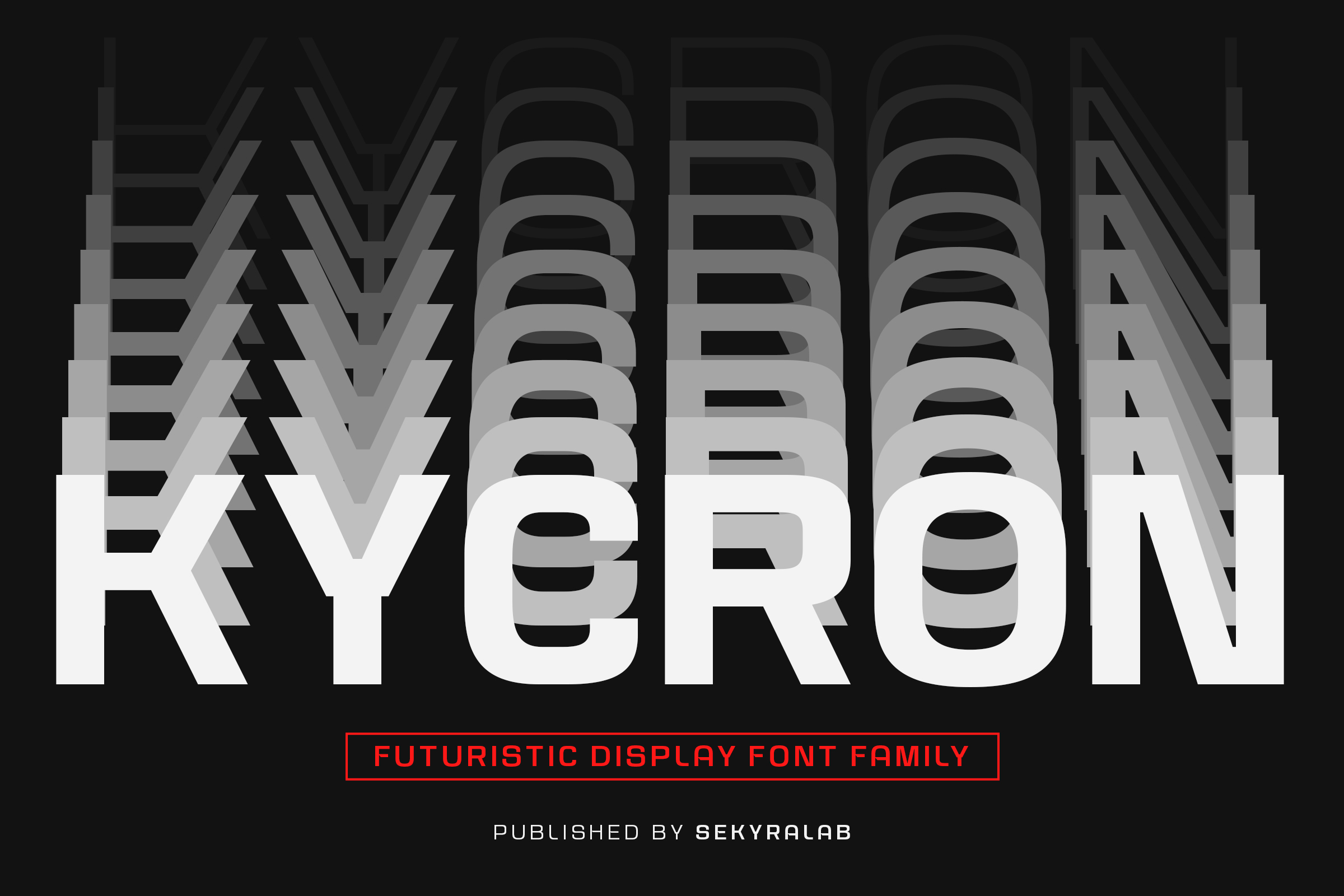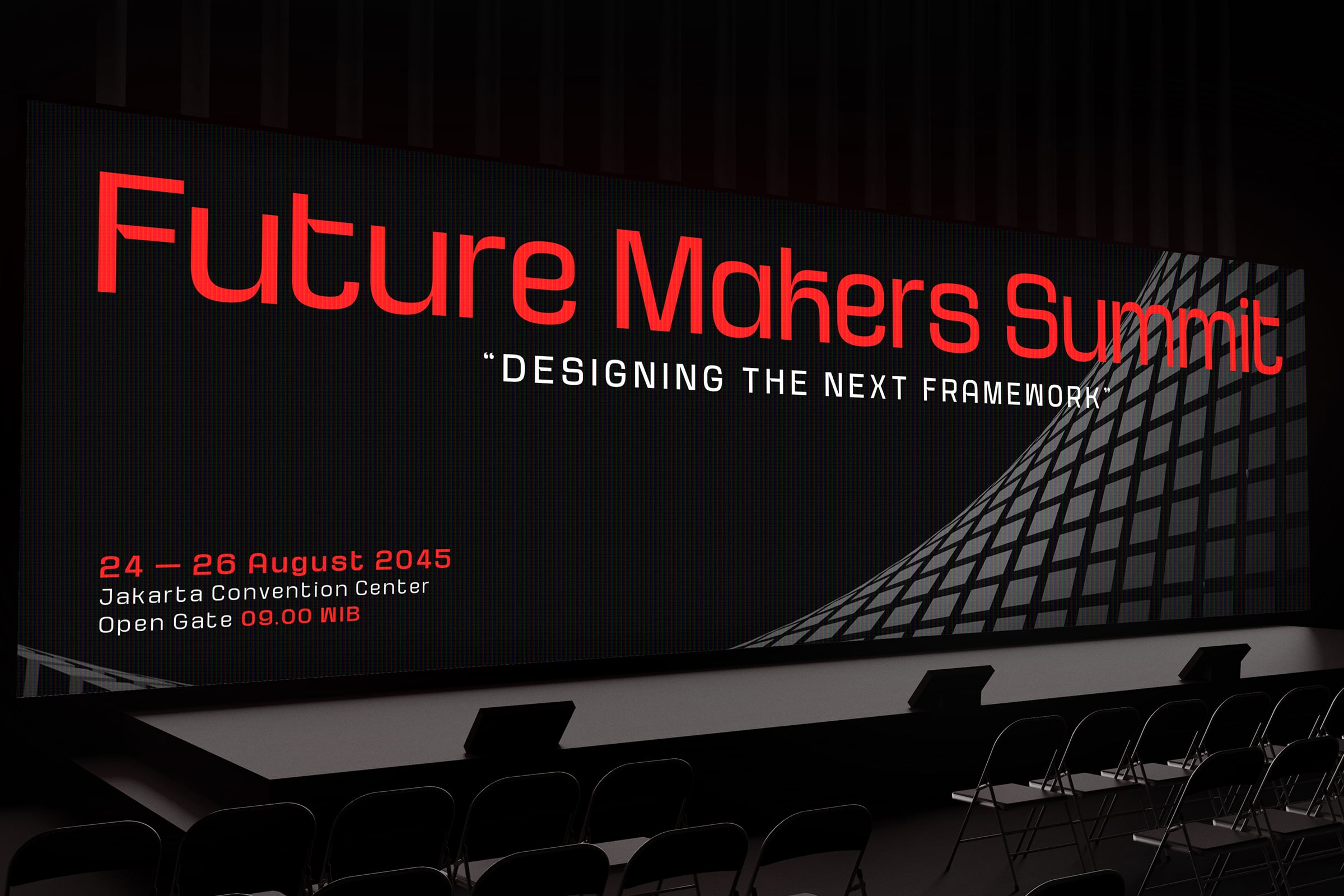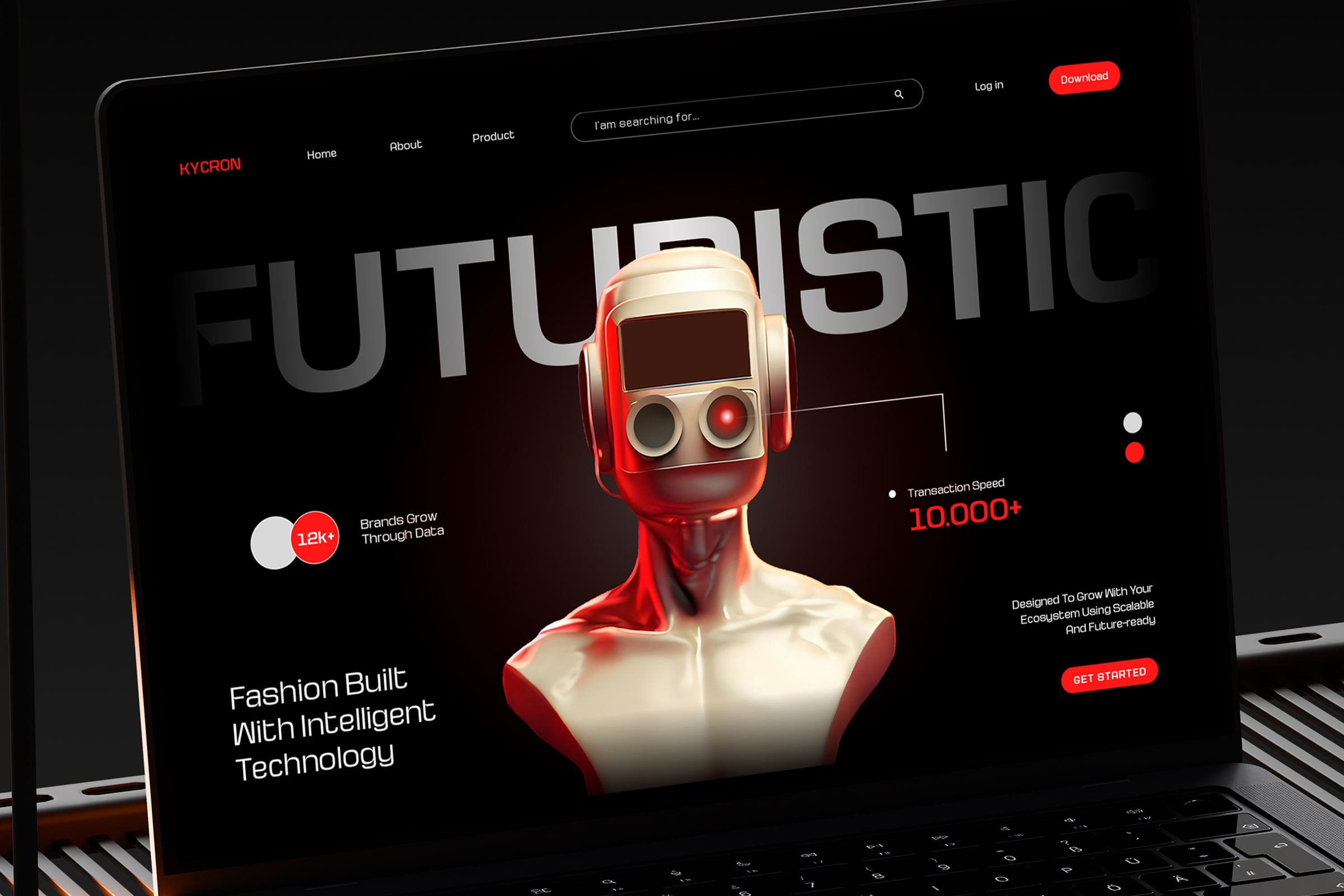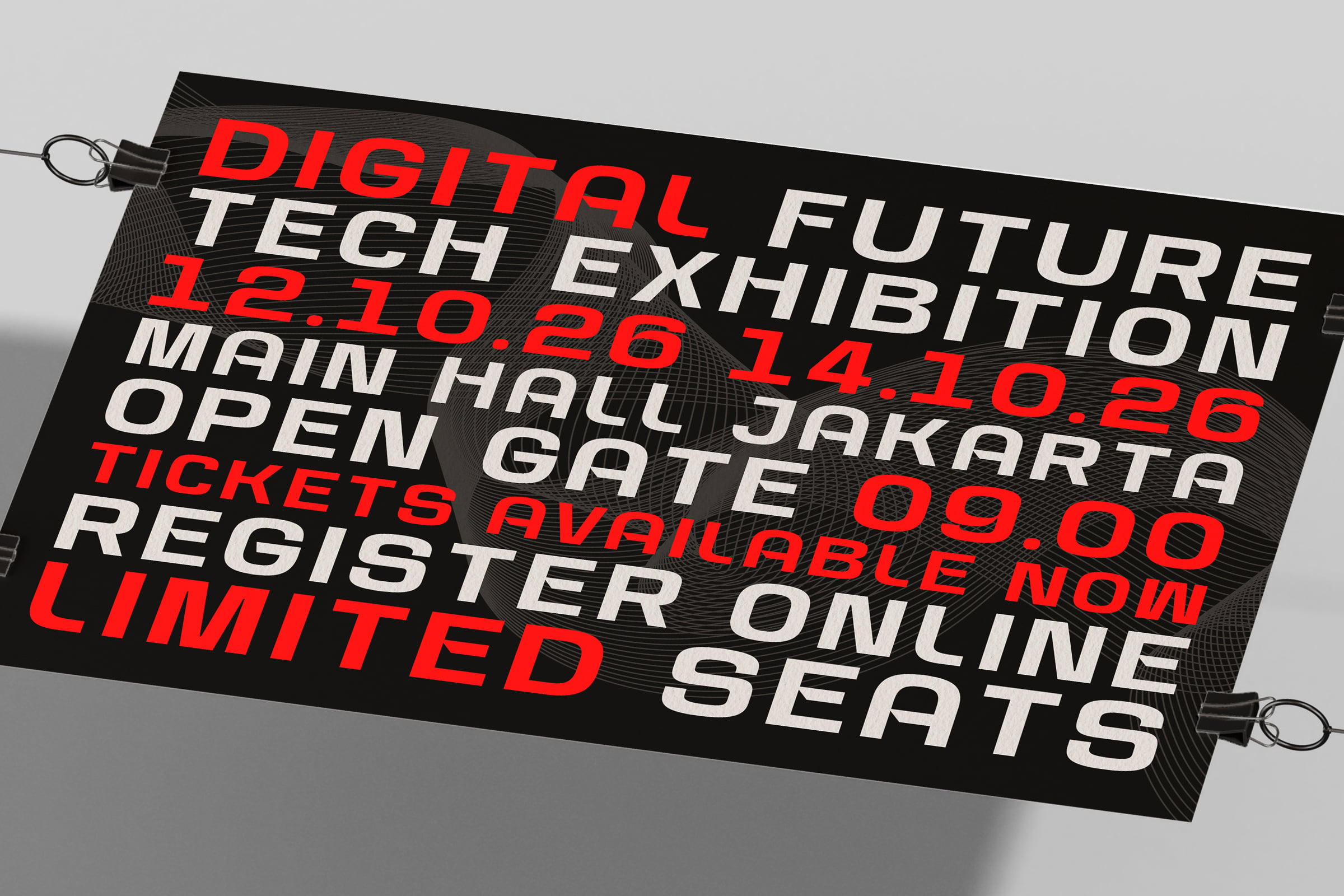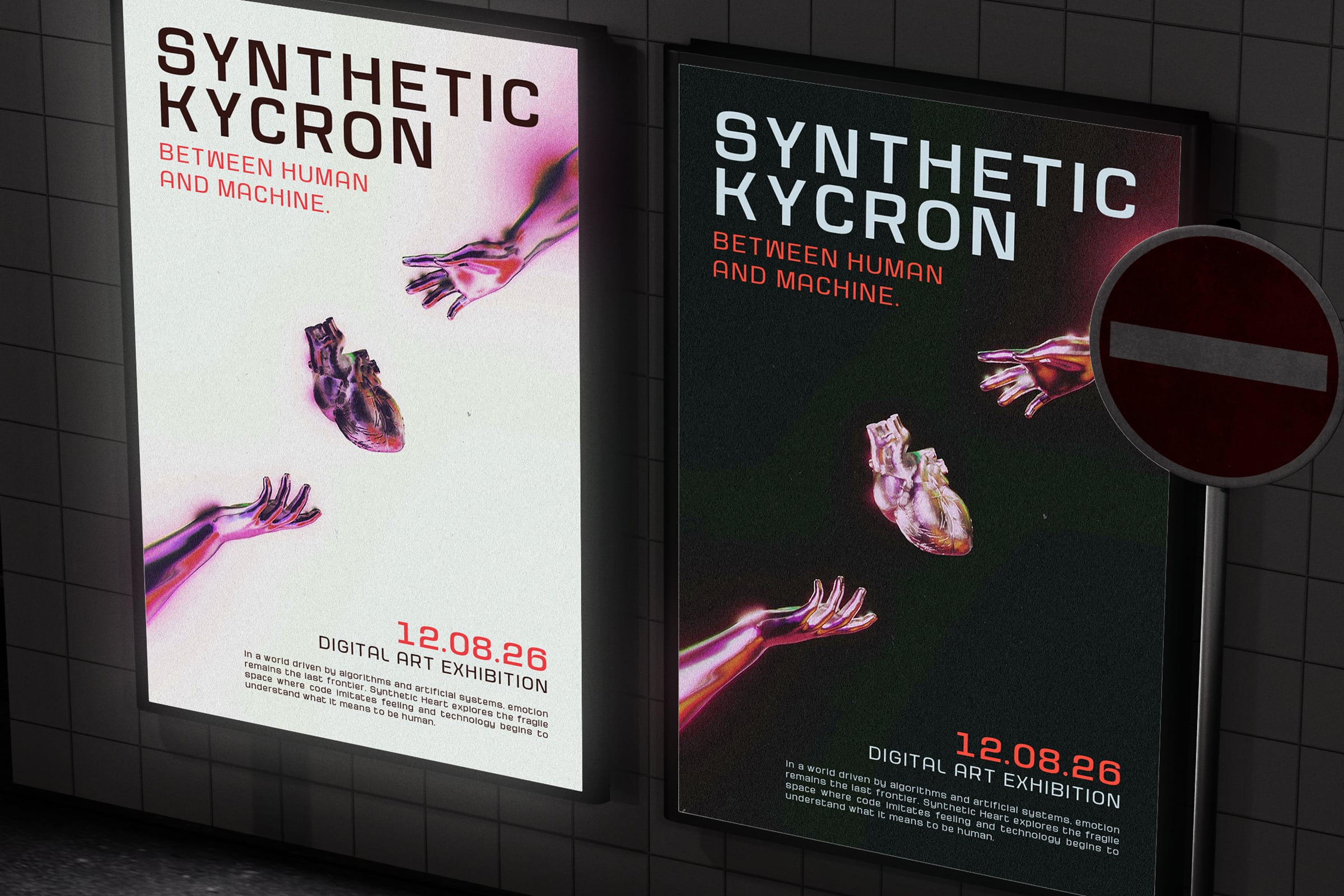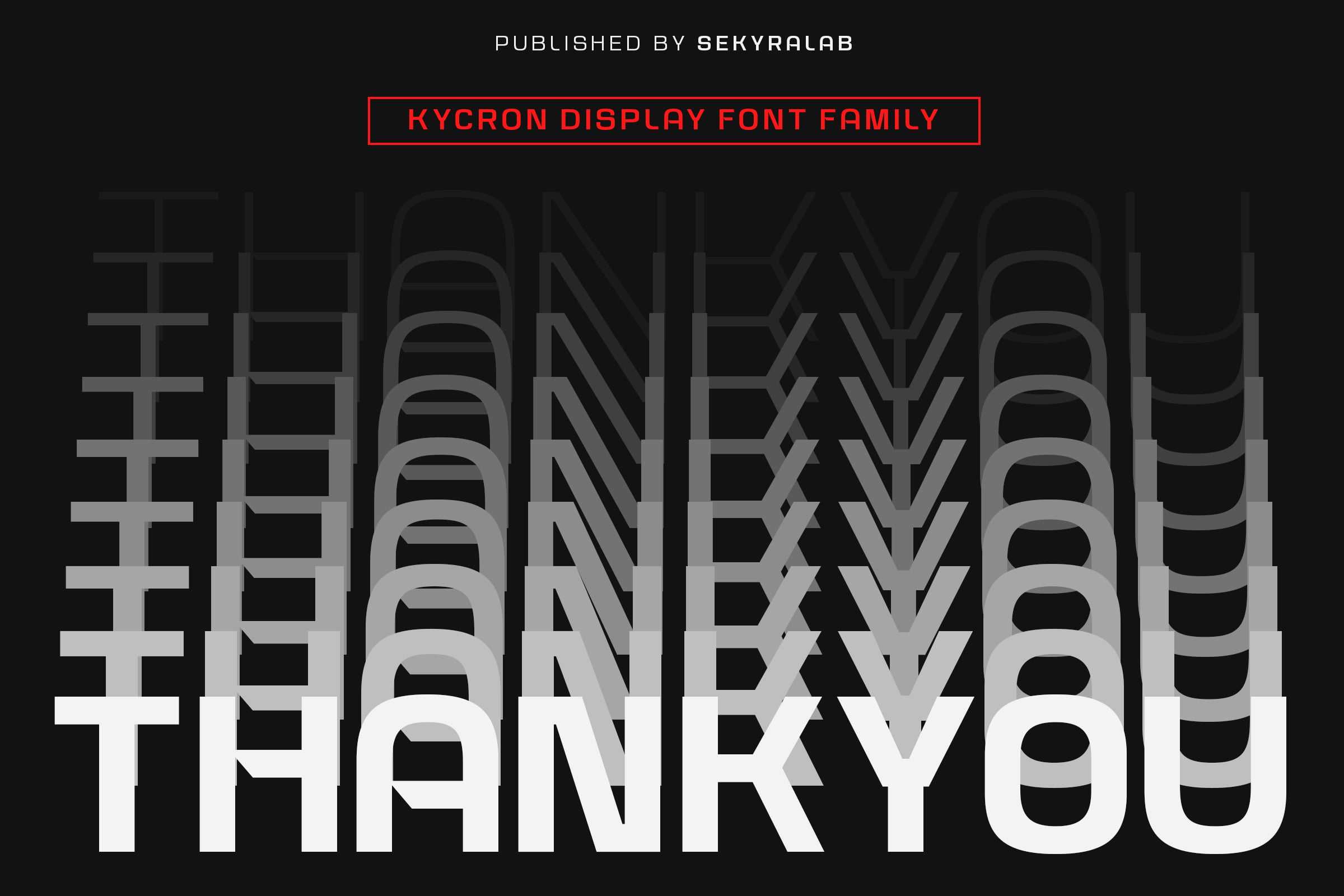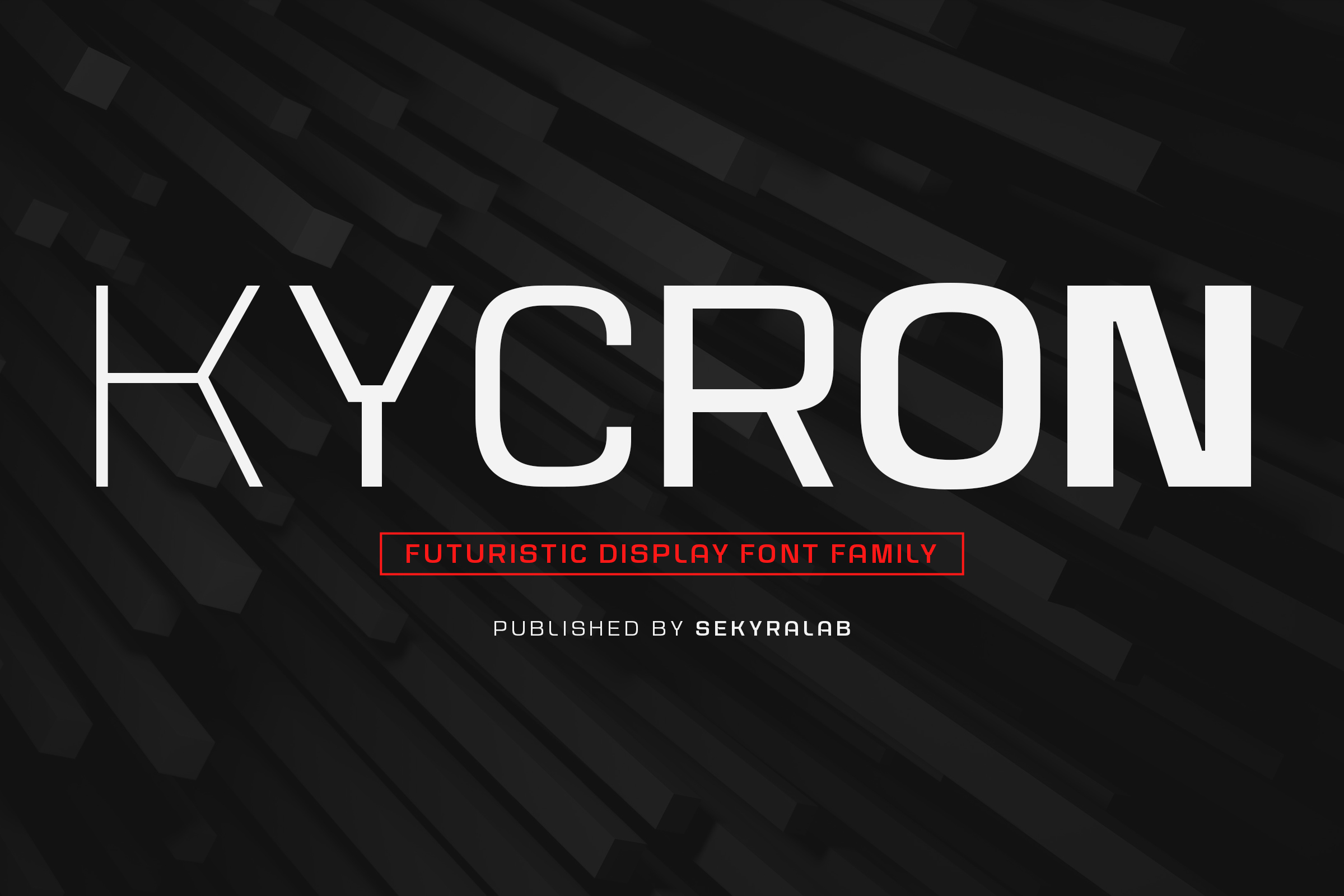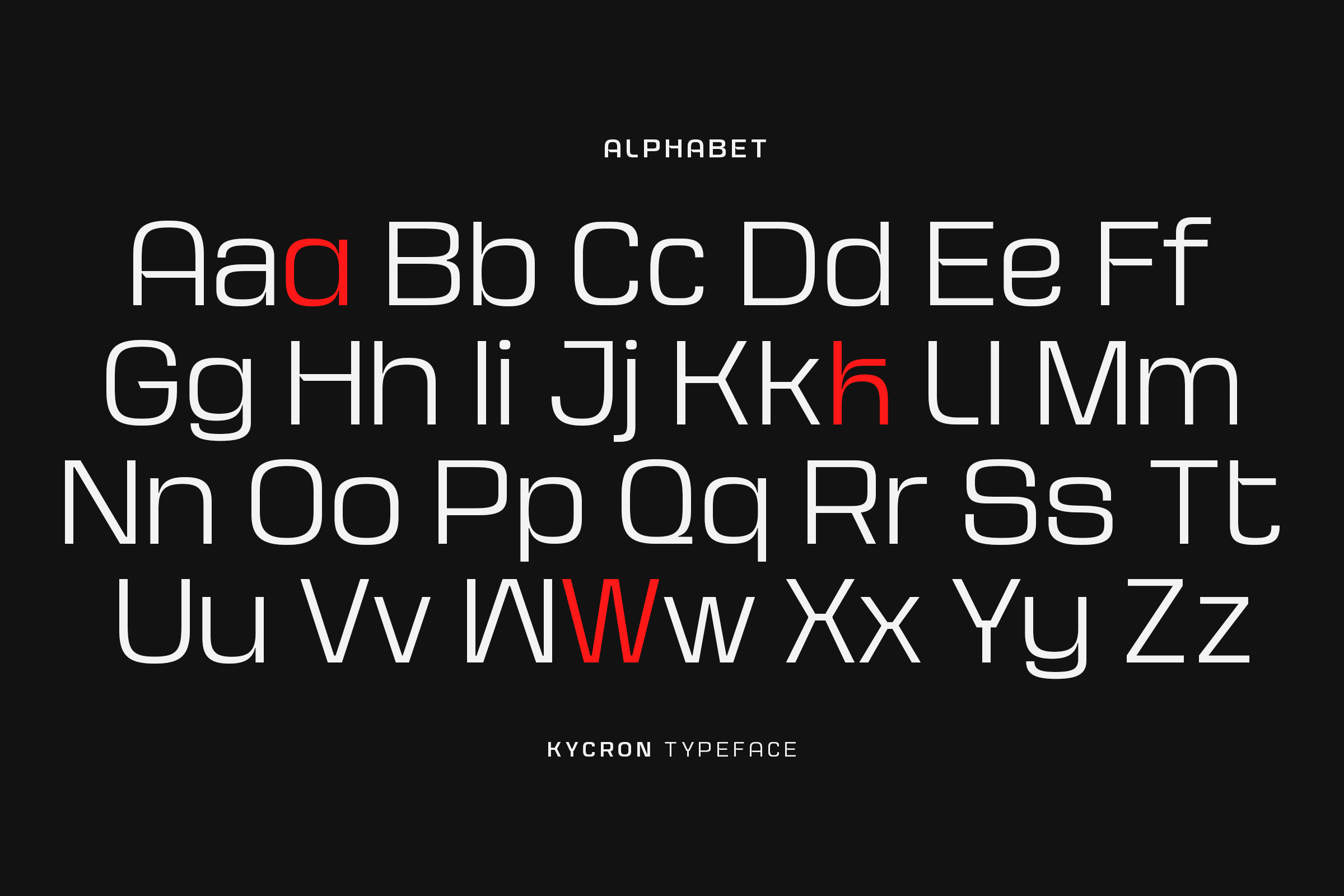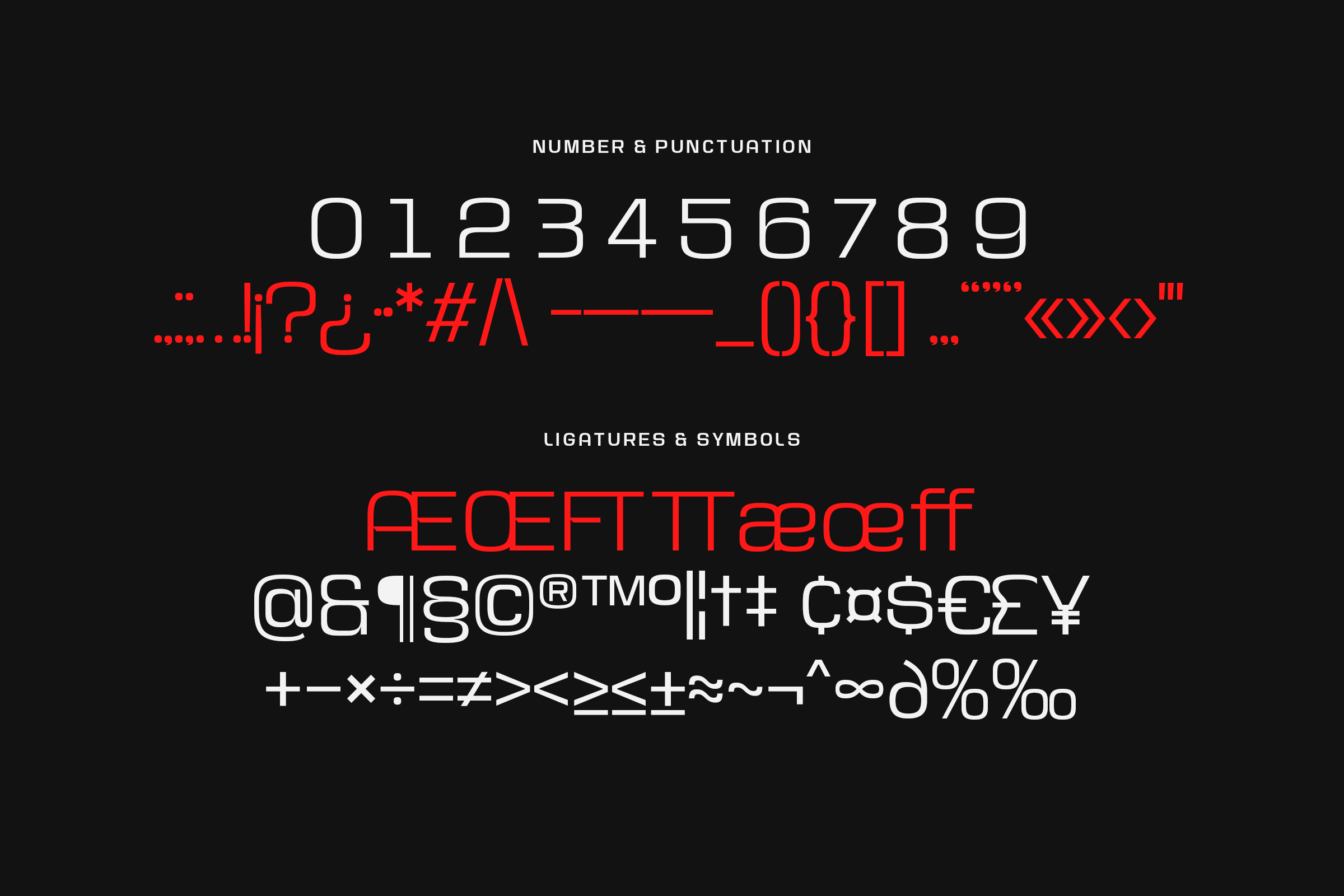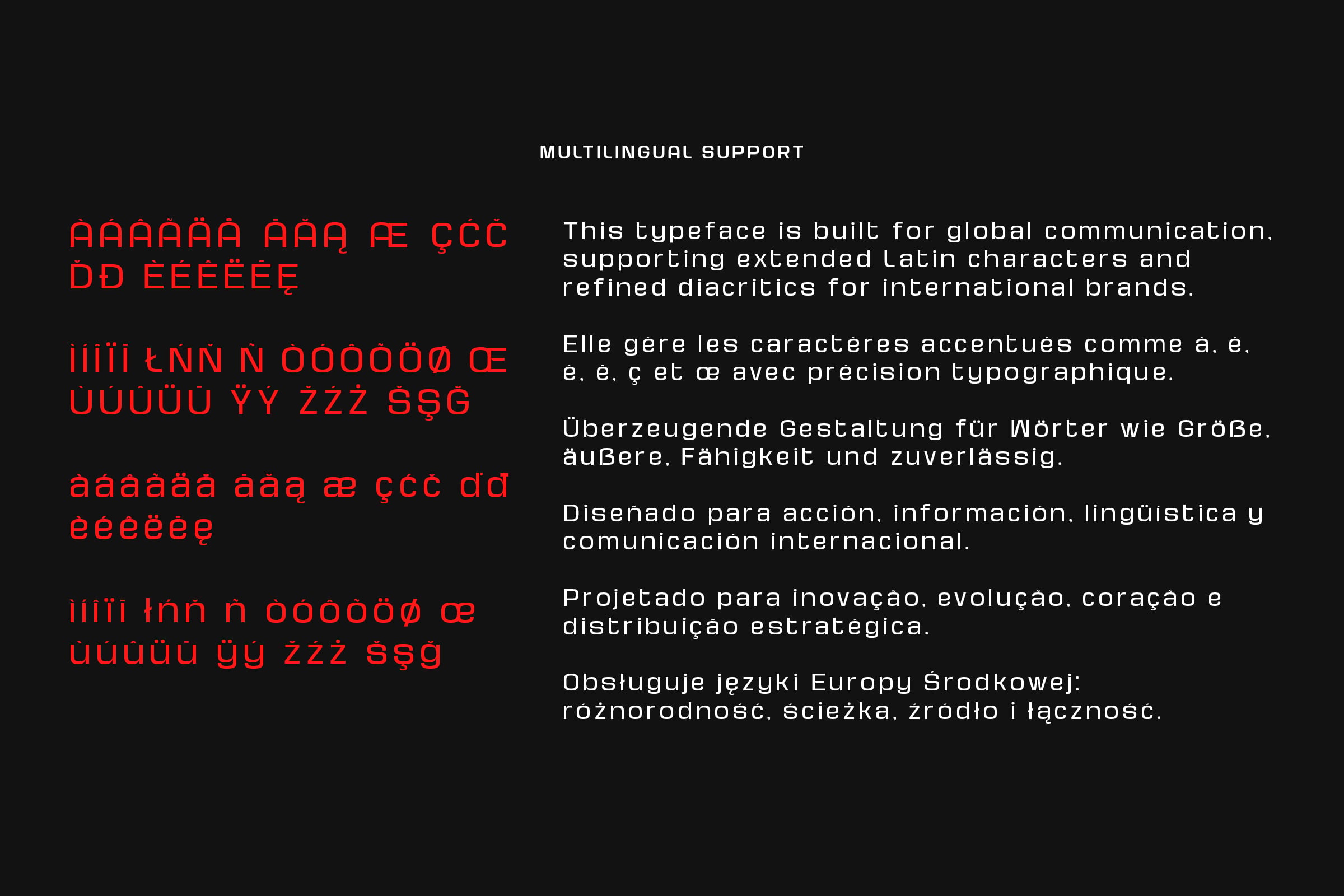
Kycron is a futuristic display font family designed with precision, symmetry, and modern sci-fi aesthetics. Featuring clean geometric construction, sharp vertical terminals, and sleek..rounded curves, this typeface delivers a strong technological presence while maintaining clarity and balance.
Built as a complete 9-weight system from Thin to Black, Kycron provides full flexibility for layered typography, bold headlines, dynamic branding systems, and high-impact visual identities. The consistent structure across weights ensures seamless hierarchy control for editorial, digital, and branding projects.
Its minimalist yet aggressive personality makes it perfect for tech branding, gaming visuals, esports identities, cyberpunk themes, and futuristic interfaces.
Carefully crafted for display use, Kycron performs beautifully in large sizes while still maintaining legibility and structure in supporting roles.
Designed for creators who want a powerful, modern, and forward-thinking typographic voice.
Support for 91 languages
9 Weights (Thin, ExtraLight, Light, Regular, Medium, SemiBold, Bold, ExtraBold, Black)